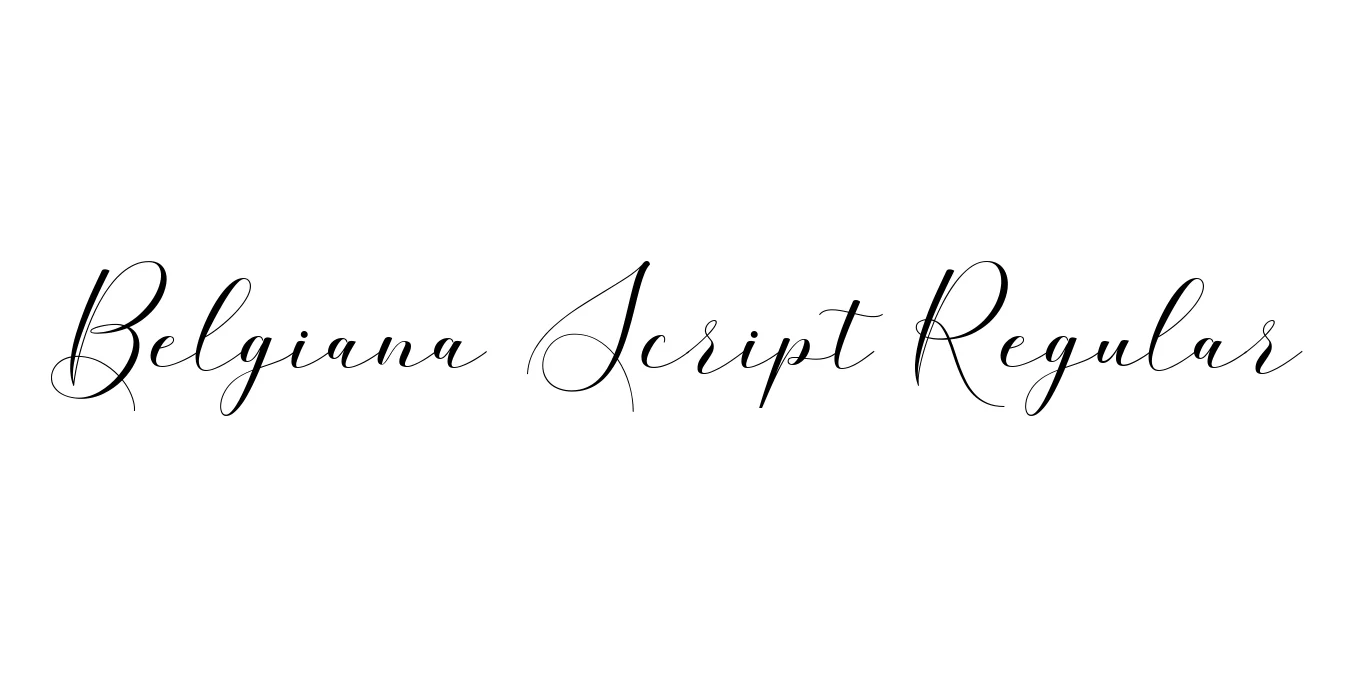
Belgiana Script Regular
Belgiana Script Regular is a sophisticated calligraphy-style typeface characterized by its flowing lines and elegant flourishes. It seamlessly blends classic penmanship with modern digital precision, making it a premier choice for high-end branding, formal wedding invitations, and romantic literature. The font's architecture is built on a rhythmic balance of thick and thin strokes, evoking a sense of timeless grace and professional craftsmanship.
This typeface features a comprehensive set of decorative alternates and ligatures that allow designers to achieve a truly bespoke, hand-lettered aesthetic. Its delicate swashes and smooth transitions between characters make it exceptionally versatile for creative projects that require a touch of luxury and human warmth. Whether used for digital headers or printed materials, Belgiana Script remains a staple for designers looking for elegant, fluid typography.
Belgiana Script Regular Best Uses
Perfect for invitations, envelopes, and formal place cards.
Ideal for high-end logos, boutique identities, and fashion labels.
Great for creating elegant aesthetic quotes and sophisticated Instagram stories.
Adds a premium, artisanal feel to cosmetic and boutique product boxes.